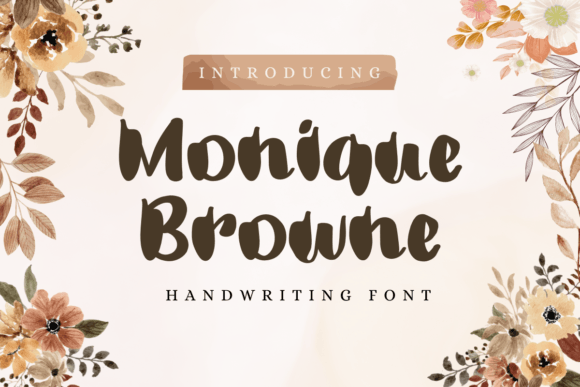
In a world where conformity reigns, Monique Browne emerges as a defiant whisper of individuality, a font that captures attention with its unconventional style and yet retains a pleasing visual harmony. Inspired by the captivating beauty of blooming flowers, this font exudes a warm, earthy charm that adds a touch of nature's allure to your designs.
With its artistic flair and unconventional letterforms, Monique Browne stands as a versatile choice for a myriad of creative endeavors. Whether you're crafting eye-catching logos that demand attention, designing captivating posters that captivate imaginations, or creating stunning invitations that leave a lasting impression, this font adds a touch of uniqueness and sophistication that sets your creations apart from the ordinary.
Monique Browne is the perfect choice for those who seek to express their individuality through their designs. Its distinct style adds a touch of intrigue and mystery, inviting viewers to explore the depths of your creativity. Whether you're a seasoned designer or just starting your artistic journey, this font provides the perfect canvas for your imagination to run wild.
This font invites you on a journey of creativity, a voyage where your designs are transformed into works of art, where words dance with elegance, and where your imagination knows no bounds.
Unlock the potential of Monique Browne today and let your creativity bloom. Embrace the beauty of unconventional lettering and create designs that speak volumes about your unique style and vision.